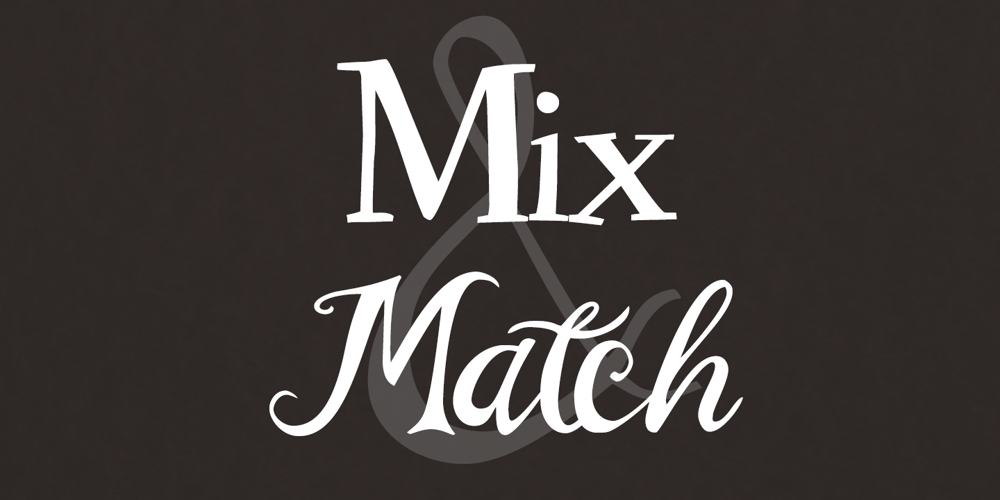
Smoot
Smoot font
Smoot Font Family was designed by Kent Swecker and published by A New Machine. Smoot contains 2 styles and family package options. This all new hand drawn font comes as a serif and a script version. Mix and match to bring your designs whimsy and playfulness. Suitable for headlines, posters and call outs.